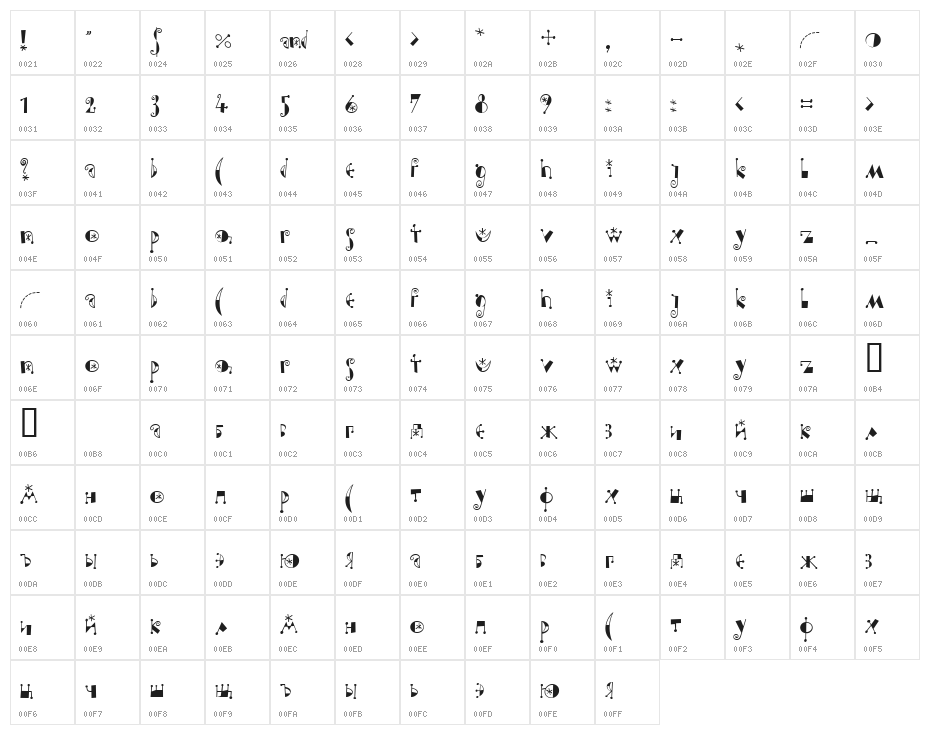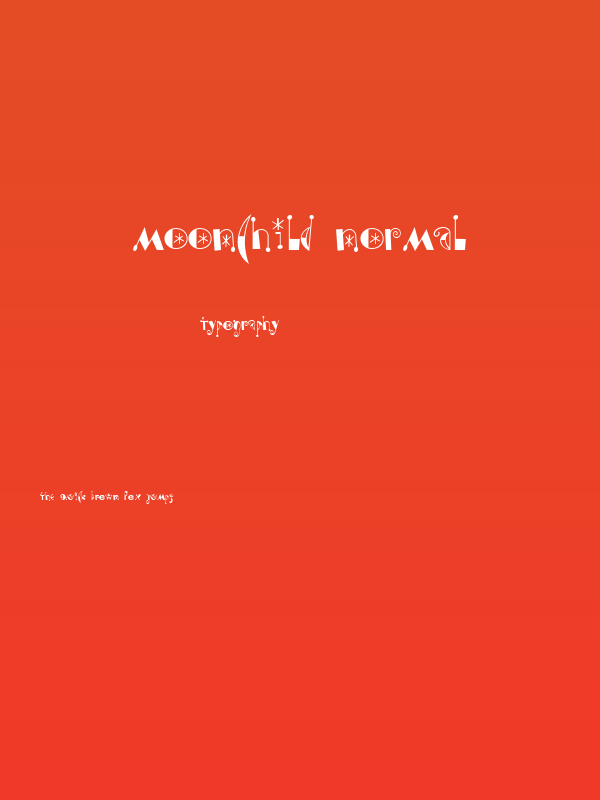
Moonchild Normal Font
Moonchild Normal Description
This font features a whimsical and playful design, characterized by its unique combination of geometric shapes and decorative elements. The letters are adorned with star-like symbols and dots, giving it a celestial and magical appearance. The strokes vary in thickness, adding a dynamic and lively feel to the text. The overall style is both modern and decorative, making it suitable for creative and artistic projects. The font includes both uppercase and lowercase letters, numbers, and a variety of special characters, each maintaining the distinctive decorative theme.
Proposed ProjectsIdeal for children's book covers, fantasy-themed posters, party invitations, and creative branding.